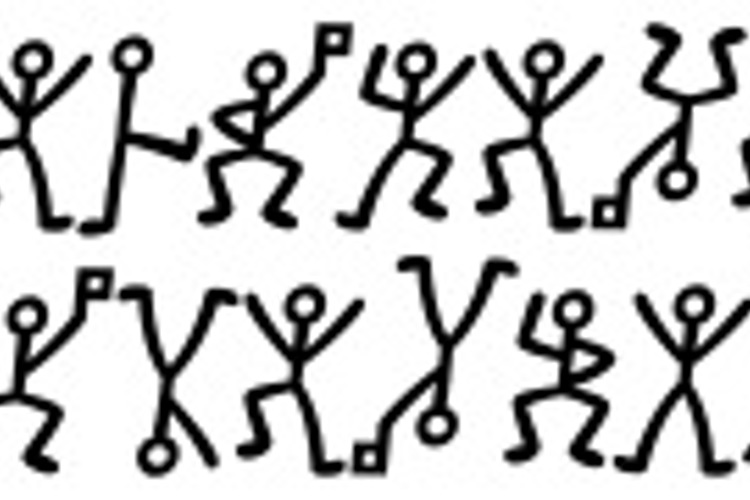
GL-DancingMen Font
Cipher from "The Adventure of the Dancing Men", in The Return of Sherlock Holmes by Arthur Conan Doyle. Some letters added to complete the alphabet, since not all the characters were shown in the story.